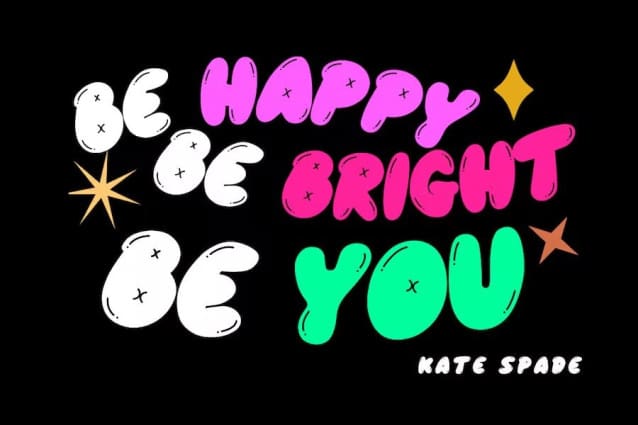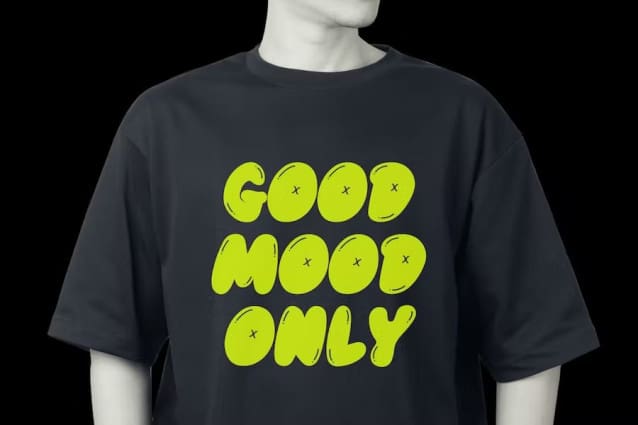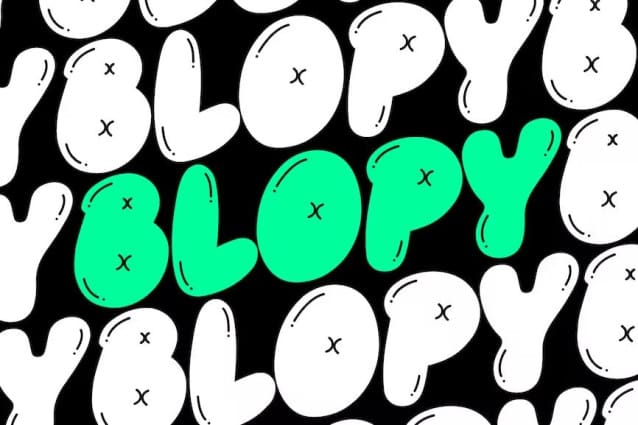
Blopy Bubble Font
Blopy Bubble Font is another retro modern font with playful look and feel. This font would be perfect for display and large graphic. Use this font for merchandise, posters, tshirt, website, and many more projects!.